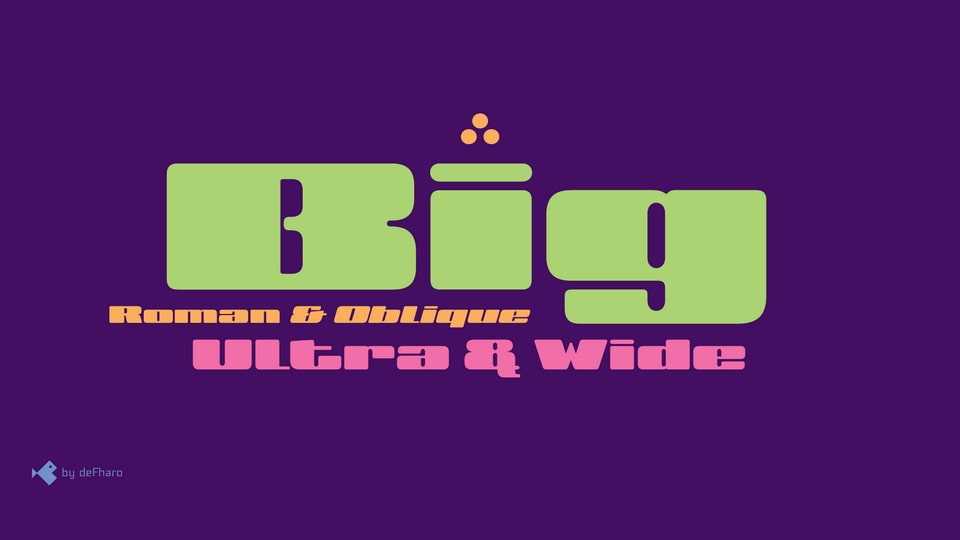
Download BIG font, as its name suggests, enormous, because with just three letters, it says more than others on a full line. It’s an ultra-wide, ultra-black, and ultra-expressive typeface.
Designer: Fernando Haro